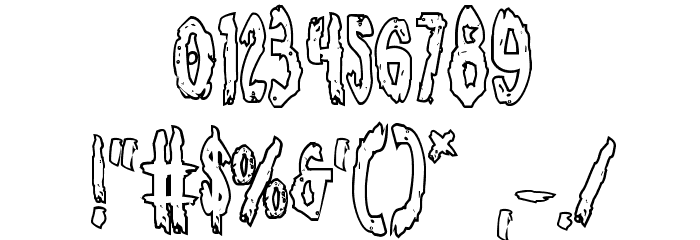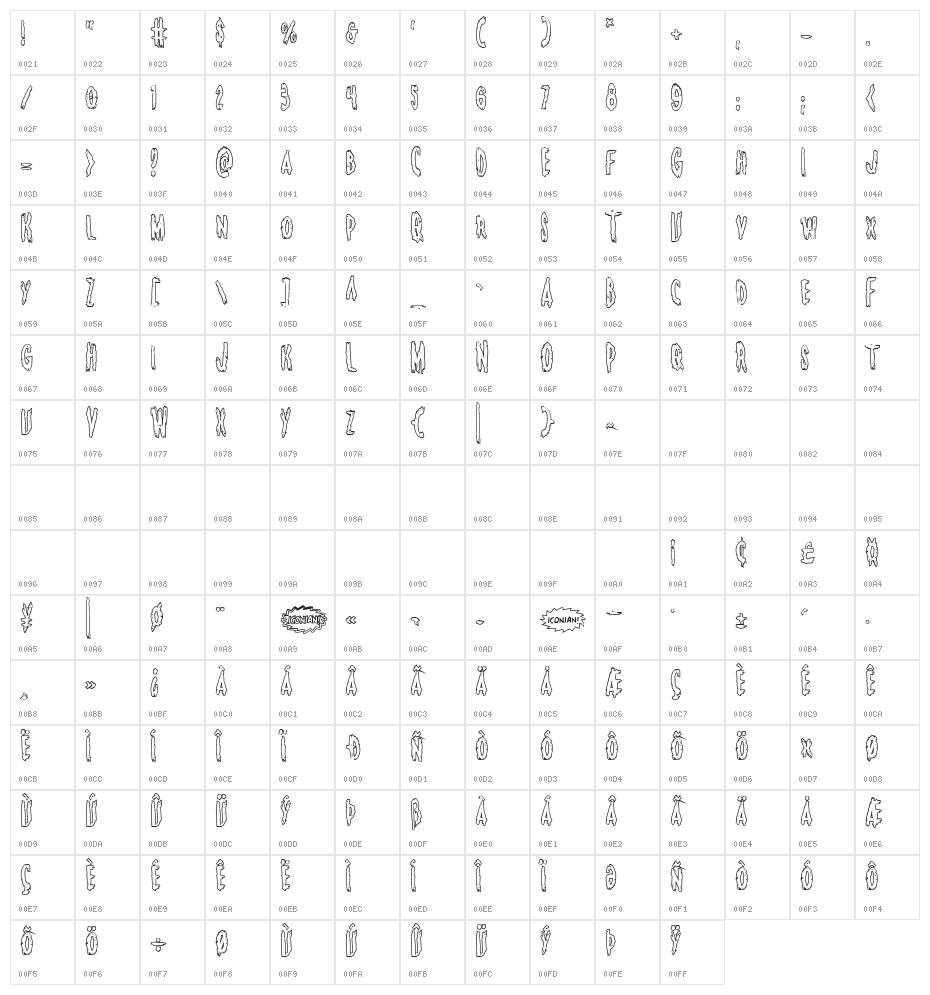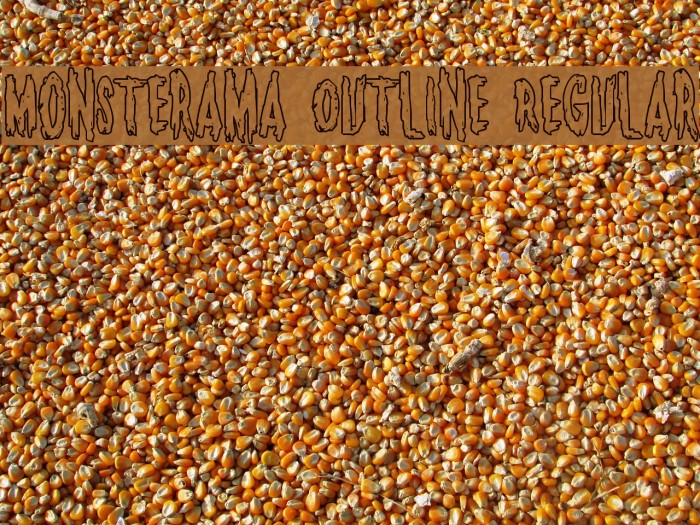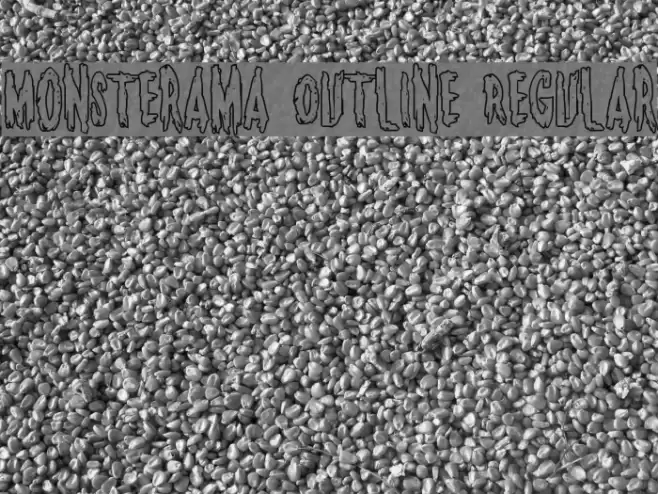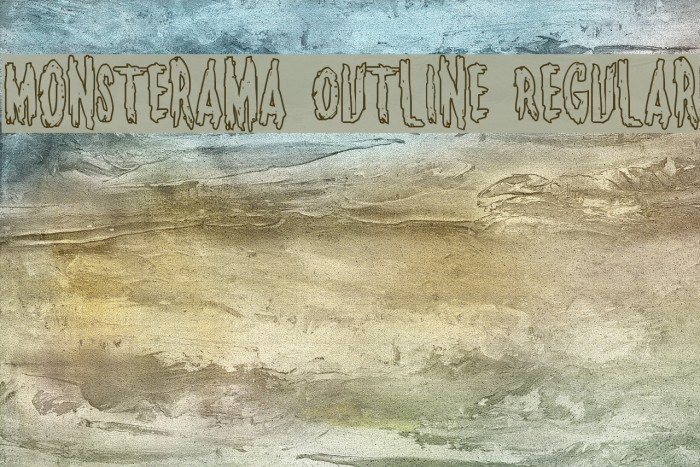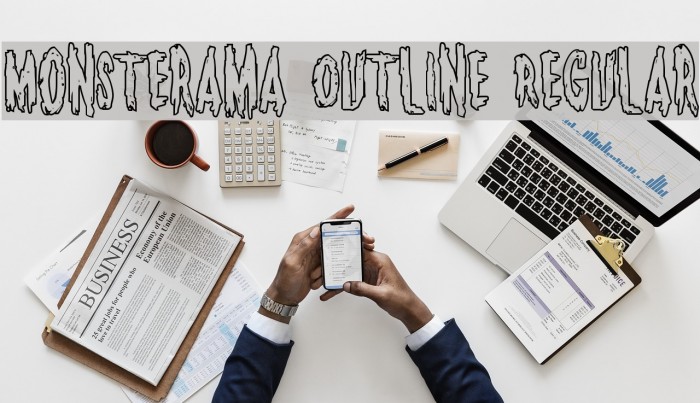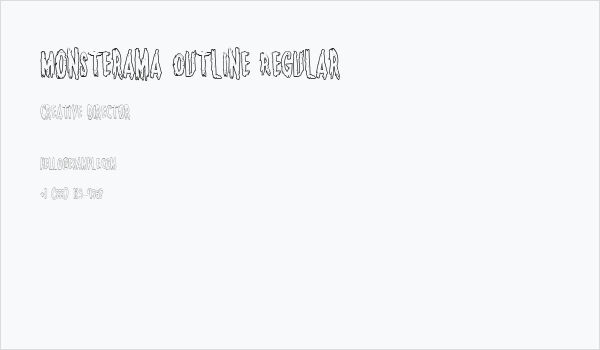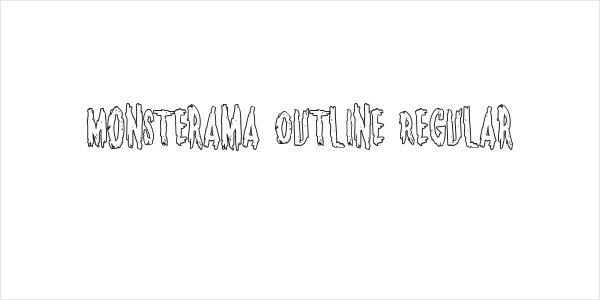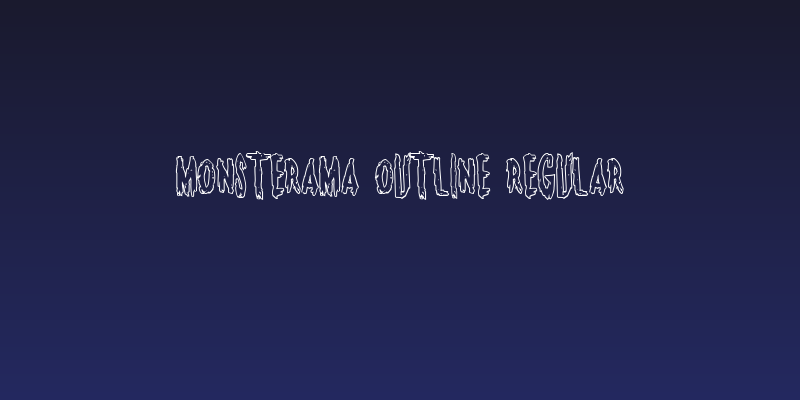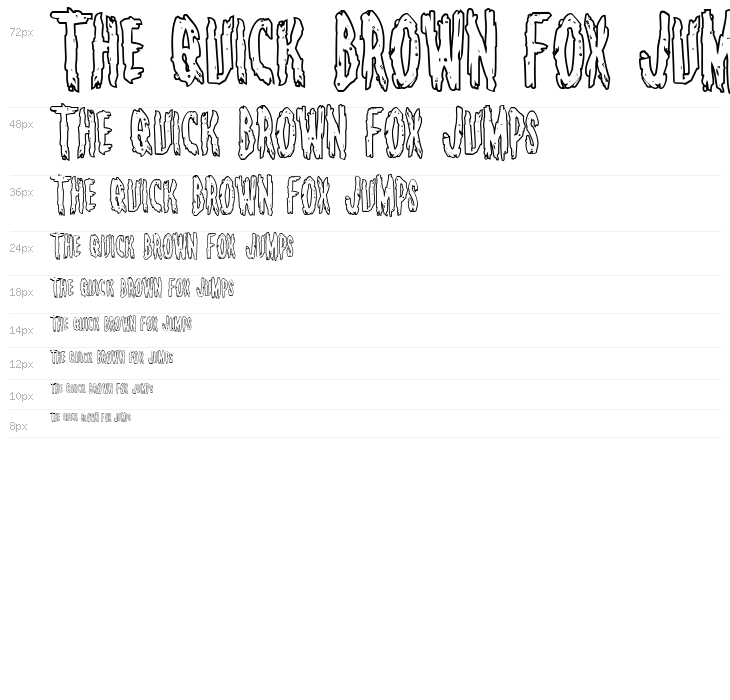
Monsterama Outline Regular Font
Monsterama Outline Regular Description
This font features a unique, jagged outline style that evokes a sense of horror and playfulness. The characters are designed with irregular edges, giving them a hand-drawn, spooky appearance. The uppercase and lowercase letters maintain a consistent style, with exaggerated curves and sharp angles that create a dynamic and eye-catching effect. Numbers and special characters follow the same design principles, ensuring a cohesive look across all elements. The font's distinct outline and irregular shapes make it ideal for projects that require a bold and unconventional aesthetic.
| Proposed Projects | Ideal for Halloween-themed designs, horror movie posters, spooky invitations, and creative branding projects. |